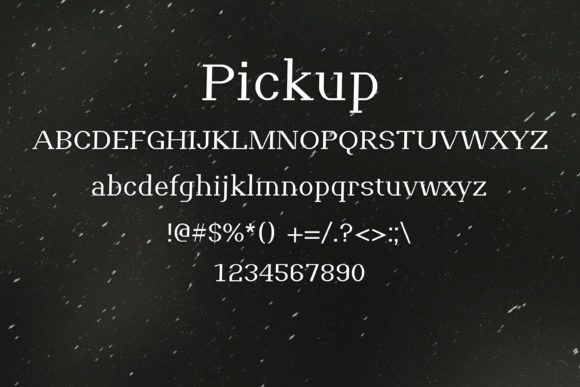
Introduction to Pickup Font Font
Fonts play a crucial role in design, and the Pickup Font font is a typeface that brings both character and versatility to any project. Whether you’re working on a branding project, a website, or a print design, the Pickup Font font offers a unique style that can elevate your work.
Pickup is a uniquely playful display font that radiates clarity and style.
Use it to turn any design project into a true standout, .
Key Features of Pickup Font Font
Why Choose Pickup Font Font?
The Pickup Font font is more than just a typeface – it’s a design tool that helps you communicate your message with style and clarity. Its unique character set and versatile design make it suitable for a wide range of applications, from elegant invitations to bold headlines.
With its carefully crafted letterforms and balanced proportions, the Pickup Font font ensures readability and visual appeal across all mediums.
What makes Pickup Font font special?
The Pickup Font font stands out with its unique design, exceptional readability, and versatility across various design applications.